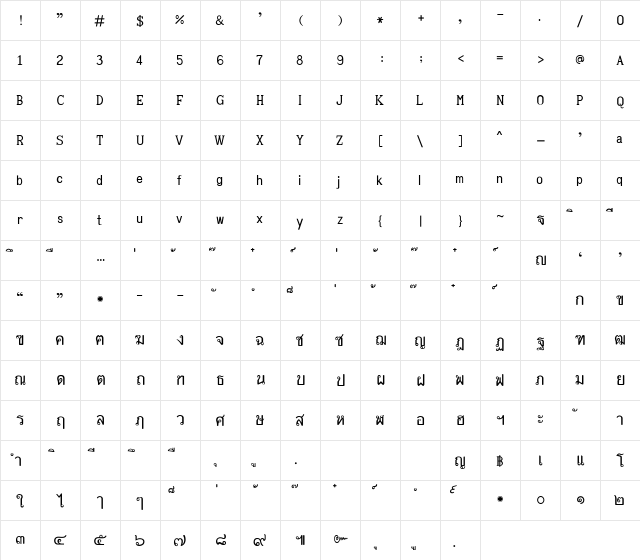
Book_BasiS [2006] Regular
| Foundry | Book |
| Designer | Thanthip Kateyoi |
Design Context for Book_BasiS [2006] Typeface
Book_BasiS [2006] takes a measured approach to typography — its balanced proportions and neutral character make it a reliable workhorse for both digital and print work.